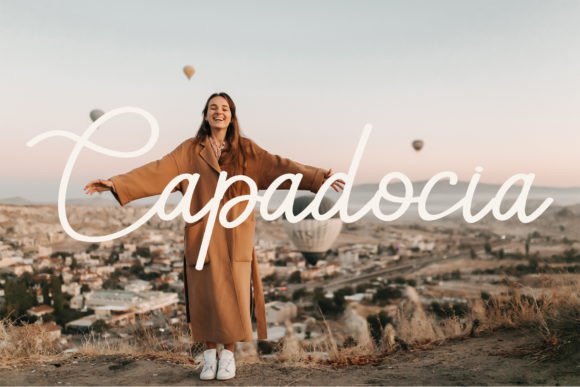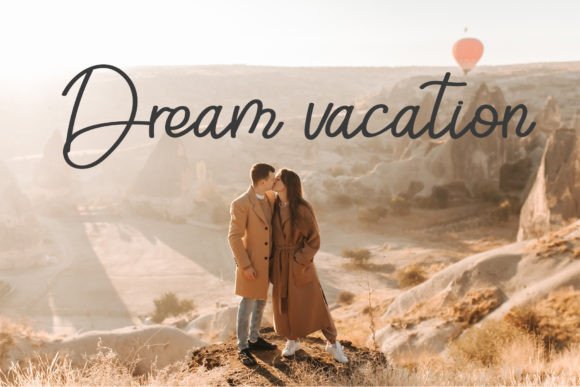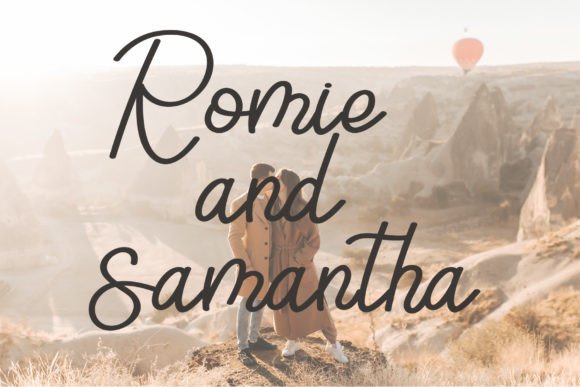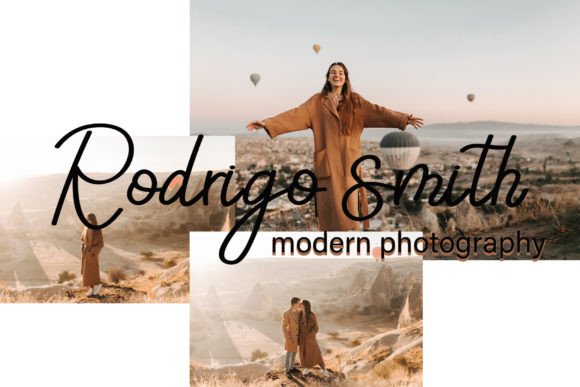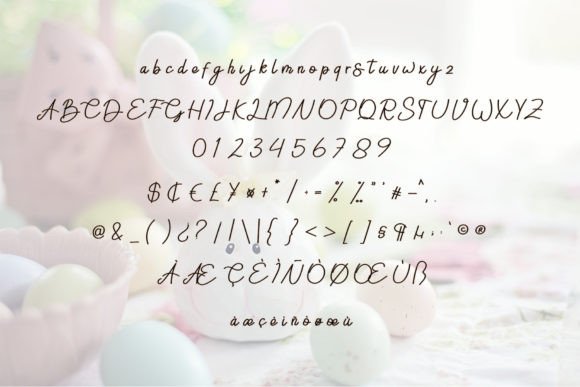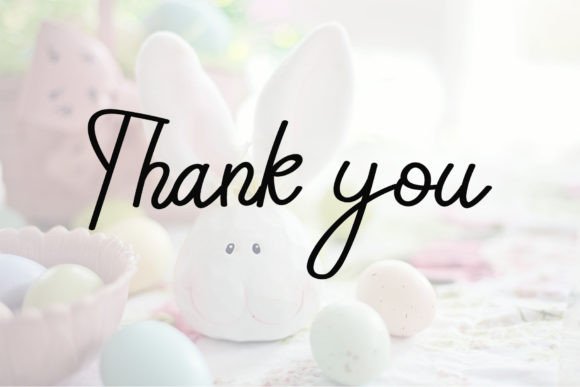
Easter Font
About Easter Font
Easter, a delightful handwritten font, unveils a collection of charming and playful characters that seemingly dance along the baseline with joyous exuberance. This font is more than just a typographic choice; it’s a design element that injects a sense of whimsy and lightheartedness into any creative project. By incorporating Easter into your designs, you’ll observe how it has the power to elevate your ideas and make them truly stand out in a crowd.
The distinctive charm of Easter lies in its handcrafted appearance, evoking a sense of warmth and authenticity. Each character is carefully crafted to exude a friendly and approachable vibe, making it an ideal choice for a wide range of applications. Whether you’re working on greeting cards, invitations, posters, or any design project that calls for a touch of playfulness, Easter proves to be an excellent companion.
The characters of this font seem to have a life of their own, creating a dynamic and animated feel. This liveliness adds a unique character to your text, making it visually engaging and leaving a memorable impression on the audience. Easter is not just a font; it’s a design tool that can transform ordinary text into a lively and expressive component of your creative vision.
Moreover, the handwritten style of Easter brings a personalized touch to your projects, infusing them with a sense of handmade artistry. It’s as if each letter carries the personality of the artist, adding authenticity and character to the overall design. The playful dance of characters along the baseline further enhances the whimsical nature of Easter, making it suitable for projects that require a touch of spontaneity and joy.
In conclusion, Easter is more than a font; it’s an invitation to infuse your designs with a playful spirit. Whether you’re aiming for a fun and casual look or want to add a touch of personality to your creations, Easter is the perfect choice. Watch as your ideas come to life and stand out with the delightful and charming characters of the Easter font.